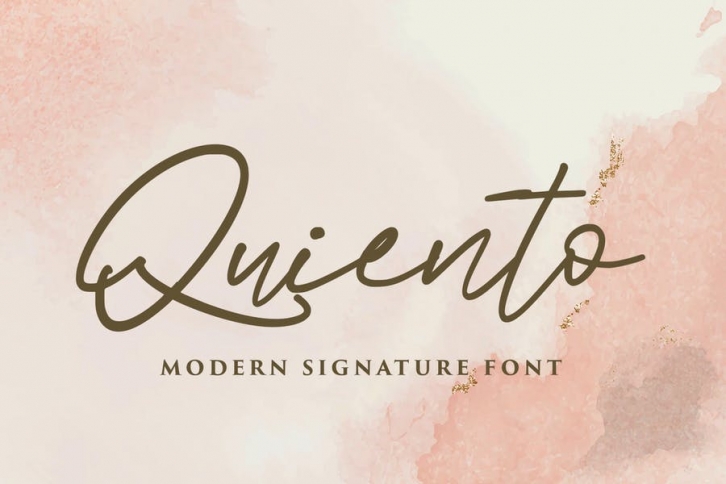
Introducing to The Quiento Font
Quiento is attractive handwritten script, ideal for use in projects that need an organic and natural style. This font is great for logo, logotype, branding,wedding, fashion, label, book cover, t-shirt, instagram post, and other, and can add an elegant and classy look to your work.